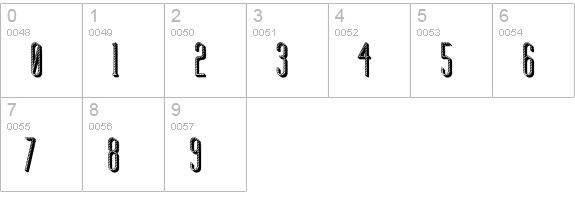
Labtop Candy Extra Font Details
Labtop Candy Extra font is a whimsical and playful typeface that exudes a fun and lighthearted vibe. Its rounded edges and bold strokes give it a friendly and inviting appearance, making it perfect for a variety of design projects. This font is sure to add a touch of sweetness and charm to any creative endeavor. What makes Labtop Candy Extra font even sweeter is that it is available for free download at FontsMarket.com. That's right, you can easily get your hands on this delightful font without spending a penny. Whether you're working on a project for personal use or for a client, Labtop Candy Extra font is a great choice for adding a touch of fun and creativity. Download it today and let your designs shine with its playful charm.